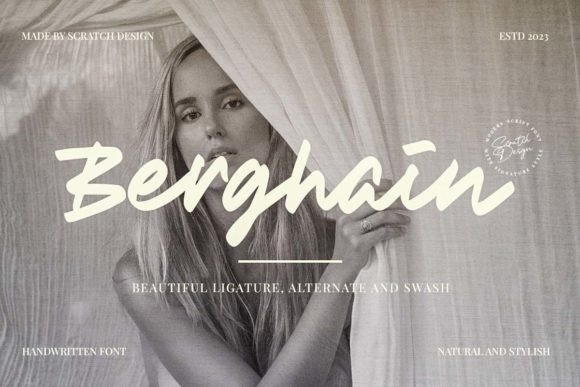
Introducing Berghain, the pinnacle of modern script handwriting fonts, meticulously crafted by Scratch Design, a renowned name in typography. Embodying a natural and incredibly versatile style, Berghain is the perfect choice for those seeking authenticity and captivating visual appeal.
With its beautiful cursive strokes and natural handwriting texture, Berghain brings an elegant, artistic touch to any design project. Its effortless readability and stunning aesthetics make it a favorite among designers and typographers.
Berghain's versatility knows no bounds. Unleash your creativity in branding, wedding invitations, advertising campaigns, headlines that command attention, posters that leave a lasting impression, book covers that exude sophistication, and countless other design endeavors.
Whether you're seeking a font that stands out on colorful backgrounds or holds its own as a minimalist focal point, Berghain delivers. Its multi-language support, swashes, alternates, and captivating ligature make it a font that transcends boundaries.
Dive into the world of Berghain and elevate your designs to new heights. Your projects will radiate with newfound elegance, authenticity, and sophistication. Indulge yourself in a font that will captivate your audience and leave them yearning for more. Berghain is more than just a font; it's an experience.